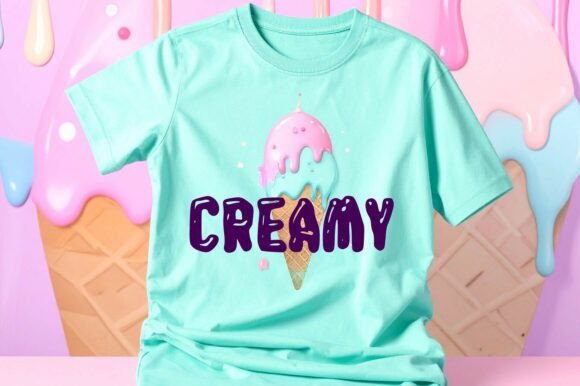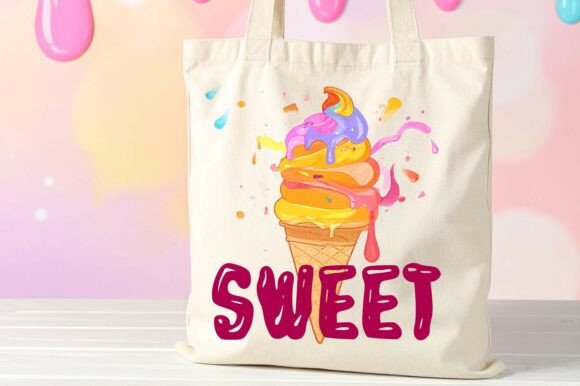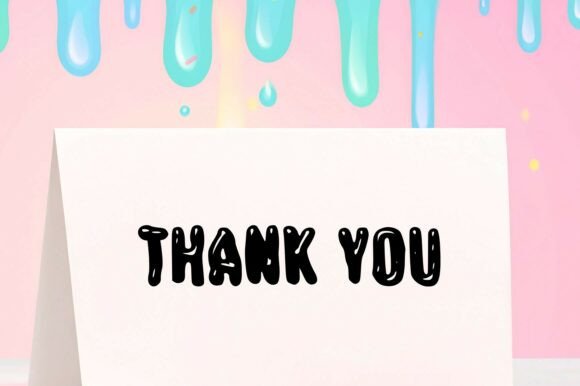
Unleash the Enchanting Charm of CAIR Font: A Sweet Addition to Your Design Projects
Are you looking for a display font that can infuse cheerfulness and amazement into your creative projects? Look no further than CAIR, an irresistibly charming typeface that is reminiscent of sweet treats, creamy ice cream, and sugary delights. With its sturdy, rounded letters and welcoming grace, CAIR presents a singular, sleek, and lively look that mirrors the cozy feeling of relishing a scoop of your favorite ice cream.
A Font that Exudes Charm and Joyful Enthusiasm
CAIR is characterized by its genuinely enticing appeal, making it an ideal solution for communications that need to be light-hearted, laid back, and brimming with “Sweetness.” Whether you’re designing for a sweet shop, creating playful branding, or simply looking to add a touch of whimsy to your project, CAIR is the perfect choice. Its versatility makes it suitable for a wide range of applications, from packaging and advertising to digital media and crafts.
A Comprehensive Set of Features
CAIR font comes with a comprehensive set of common punctuation marks, ensuring uniform and flexible use over various text needs. This means you can use CAIR with confidence, knowing that you have access to a wide range of characters and symbols to enhance your design. Whether you’re creating a short phrase or a lengthy paragraph, CAIR has got you covered.
Seamless Compatibility with Design Software and Platforms
So, what can you create with CAIR font? The possibilities are endless! Here are a few ideas to get you started:
- Sweet shop branding: Create eye-catching logos, packaging, and advertising materials that capture the essence of your sweet shop.
- Playful crafts: Use CAIR to add a touch of whimsy to your craft projects, such as handmade cards, gift tags, and DIY decorations.
- Digital media: Add a dash of fun and personality to your social media graphics, blog posts, and website designs.
- Packaging design: Create stunning packaging that stands out on store shelves and delights customers.
Why Choose CAIR Font?
So, why should you choose CAIR font for your next design project? Here are just a few reasons:
- Unique and charming design: CAIR’s sturdy, rounded letters and welcoming grace make it a standout font that will capture attention.
- Versatility: CAIR is suitable for a wide range of applications, from sweet shop branding to playful crafts.
- Comprehensive set of features: CAIR comes with a comprehensive set of common punctuation marks, ensuring uniform and flexible use.
In conclusion, CAIR font is a sweet addition to any design project. With its charming design, versatility, comprehensive set of features, and seamless compatibility, CAIR is the perfect choice for designers and crafters looking to infuse cheerfulness and amazement into their work. So why not give CAIR a try and unleash the enchanting charm of this irresistibly charming display font?
Whether you’re a seasoned designer or a crafty DIY enthusiast, CAIR font is sure to delight. So go ahead, get creative, and indulge in the sweet treat that is CAIR font!